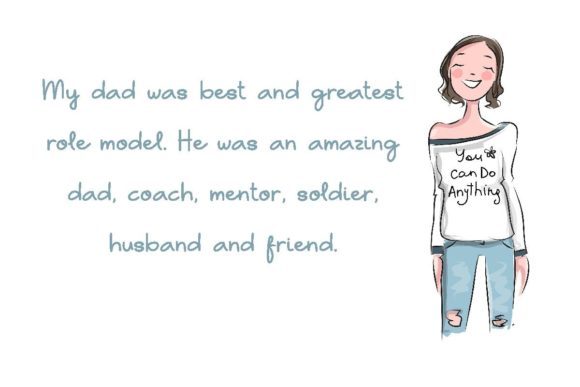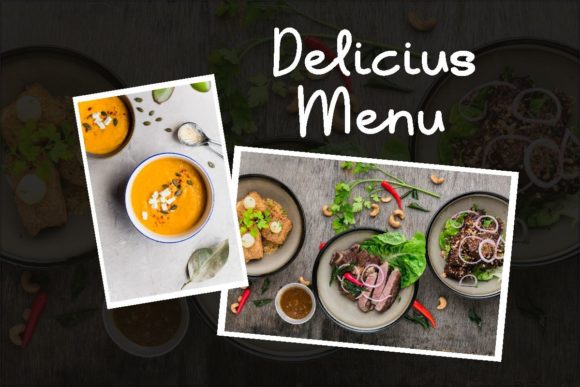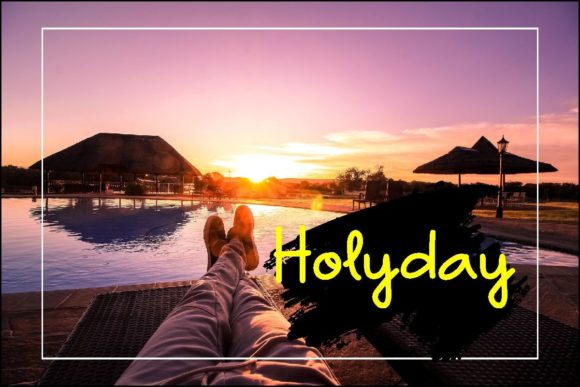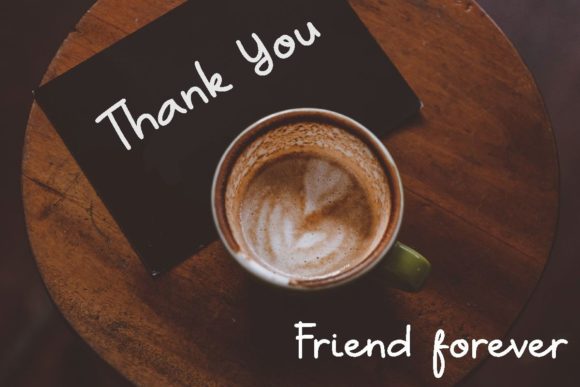
The Ultimate Guide to Best Friend Font: A Designer’s New BFF
I’ll never forget the time I was working on a project for a client who wanted a custom wedding invitation. I had the design concept nailed, but I was struggling to find the perfect font. That’s when I stumbled upon Best Friend font, and it instantly became my go-to. Its thin and simple handwritten style added a touch of elegance and whimsy to the design, making it a huge hit with the client.
An Honest Review of Best Friend Font
So, what makes Best Friend font so special? Let’s dive into the good stuff and a few quirks I’ve discovered.
- ✨ Natural and unique style: Best Friend font has a distinct, handcrafted feel that sets it apart from more generic fonts.
- ✅ Versatility: This font can be used for a wide range of designs, from wedding invitations to branding and packaging.
- 💫 Readability: Despite being a thin font, Best Friend is surprisingly easy to read, even at smaller sizes.
- 🤔 Limited contrast: Best Friend font can be a bit tricky to use on designs with busy backgrounds or low-contrast color schemes.
- ⚠️ No extensive language support: While Best Friend font covers the basics, it may not have extensive support for non-English languages.
The Story Behind Best Friend Font
Best Friend font was designed with the intention of creating a simple, yet elegant handwritten font that could be used for a wide range of designs. The designer aimed to capture the natural and unique feel of handwriting, making it perfect for designers, crafters, and creative hobbyists.
Q: What makes Best Friend font unique?
A: Best Friend font’s natural and unique style, combined with its versatility and readability, make it a standout among other fonts.
Q: Is Best Friend font suitable for body text?
A: While Best Friend font is readable, it’s best suited for headlines, titles, and short paragraphs rather than long blocks of body text.